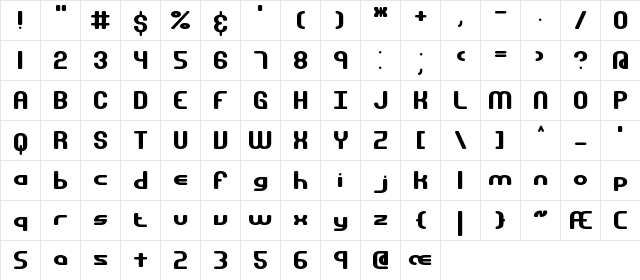
Gravitate BRK Normal
| Foundry | ƎIGMA FONTS |
| Designer | ƎIGMA FONTS - Brian Kent |
Design Context for Gravitate BRK Typeface
Gravitate BRK takes a measured approach to typography — its balanced proportions and neutral character make it a reliable workhorse for both digital and print work.